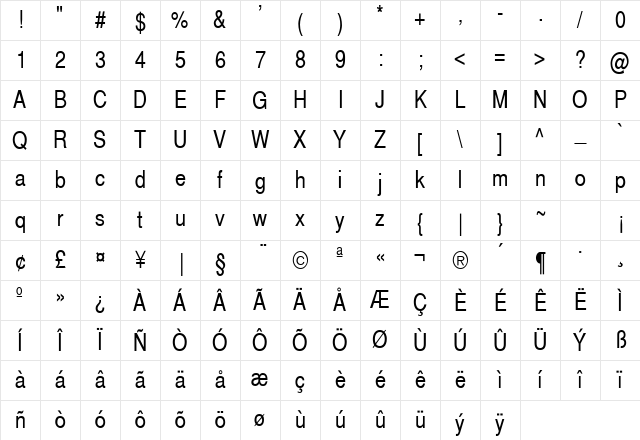
ft10 Regular
Design Context for ft10
ft10 is a composed and adaptable typeface that performs quietly and consistently across a wide range of design contexts.